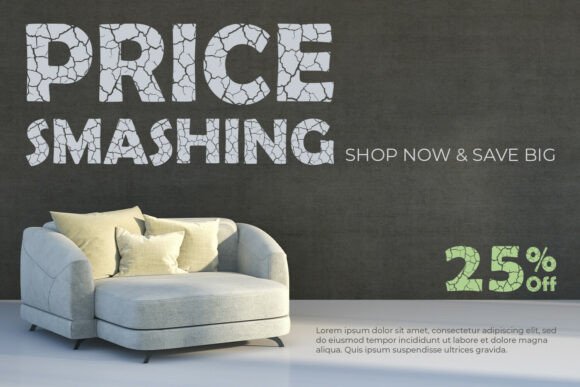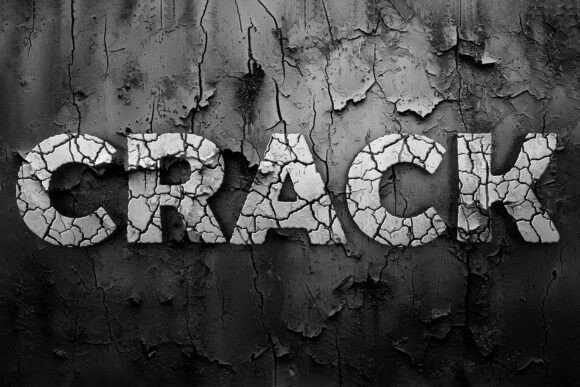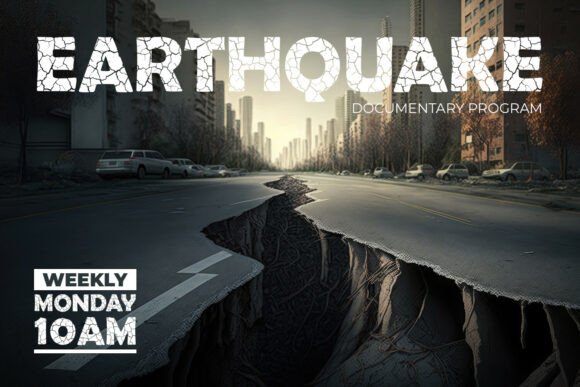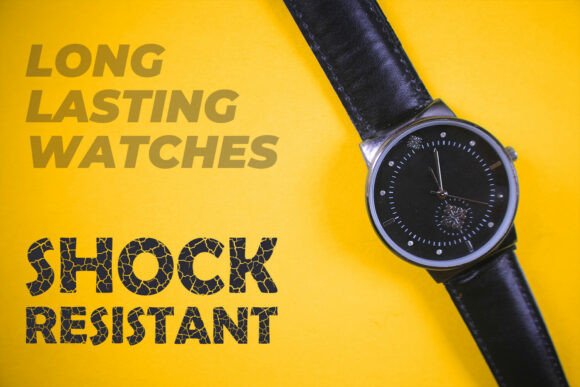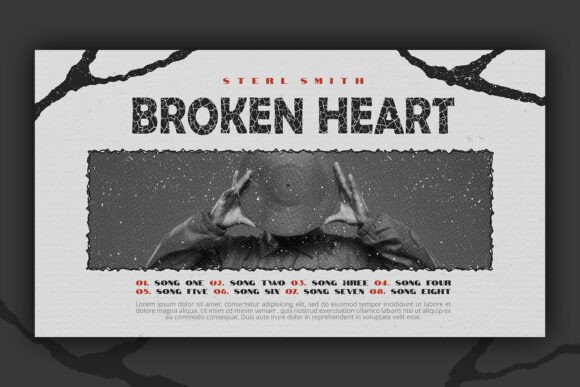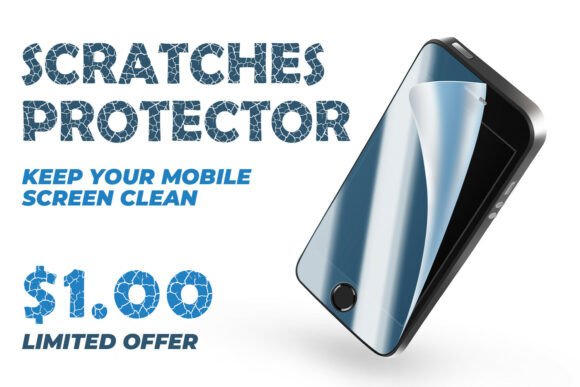
Unleash Your Creativity with CRACK: The Ultimate Premium Display Font
Are you tired of using the same old fonts for your designs? Do you want to add a bold, shattered, and edgy vibe to your creative projects? Look no further than CRACK, the ultimate premium display font. This luxury grunge typeface is designed to bring a highly detailed broken texture to your designs, making it perfect for high-end streetwear, fashion apparel, and trendy t-shirt designs.
The Perfect Blend of Sophistication and Aggression
CRACK is not just any ordinary font. It’s a game-changer. With its unexpectedly sophisticated yet aggressive aesthetic, this font is sure to elevate your portfolio and make your designs truly unforgettable. Whether you are creating elegant urban fashion branding, powerful gaming logos, striking posters, or premium merchandise, CRACK delivers a level of quality and style that is hard to match.
Key Features of CRACK Font
• Highly Detailed Broken Texture: CRACK features a highly detailed broken texture that gives it a unique and edgy look.
• Luxury Grunge Typeface: This font is designed to bring a touch of luxury to your designs, while still maintaining a grunge aesthetic.
• Perfect for High-End Designs: CRACK is perfect for high-end streetwear, fashion apparel, and trendy t-shirt designs.
• Versatile: This font can be used for a variety of design projects, including elegant urban fashion branding, powerful gaming logos, striking posters, and premium merchandise.
Why Choose CRACK Font?
There are many fonts available on the market, but CRACK stands out from the rest. Here are just a few reasons why:
• Unique Aesthetic: CRACK has a unique aesthetic that is both sophisticated and aggressive.
• High-Quality: This font is designed to deliver high-quality results, even at large sizes.
How to Use CRACK Font in Your Designs
Using CRACK in your designs is easy. Here are just a few tips to get you started:
• Pair it with a Simple Background: CRACK looks best when paired with a simple background. This will help to make your text stand out.
• Experiment with Different Sizes: CRACK can be used at a variety of sizes, from small to large. Experiment with different sizes to see what works best for your design.
• Use it for Headlines: CRACK is perfect for headlines and titles. Use it to add a bold and edgy touch to your designs.
In conclusion, CRACK is the ultimate premium display font for designers and crafters who want to add a bold, shattered, and edgy vibe to their creative projects. With its highly detailed broken texture and luxury grunge aesthetic, this font is perfect for high-end streetwear, fashion apparel, and trendy t-shirt designs. Whether you are creating elegant urban fashion branding, powerful gaming logos, striking posters, or premium merchandise, CRACK delivers an unexpectedly sophisticated yet aggressive aesthetic. So why wait? Download CRACK today and elevate your portfolio with this best-in-class textured typeface.
Take Your Designs to the Next Level